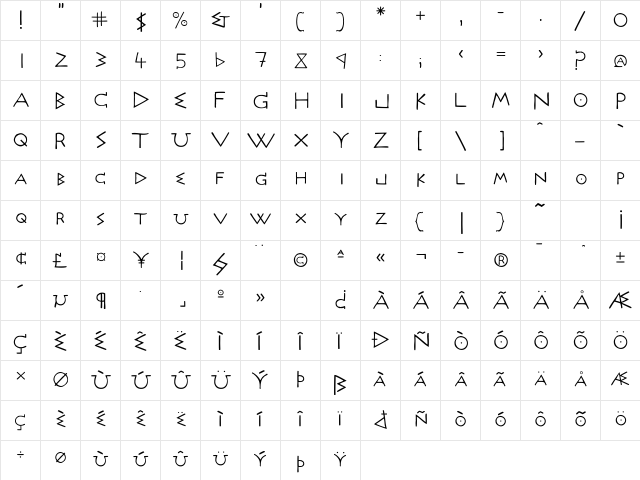
AcropolisNow Roman
Design Context for AcropolisNow Typeface
AcropolisNow takes a measured approach to typography — its balanced proportions and neutral character make it a reliable workhorse for both digital and print work.